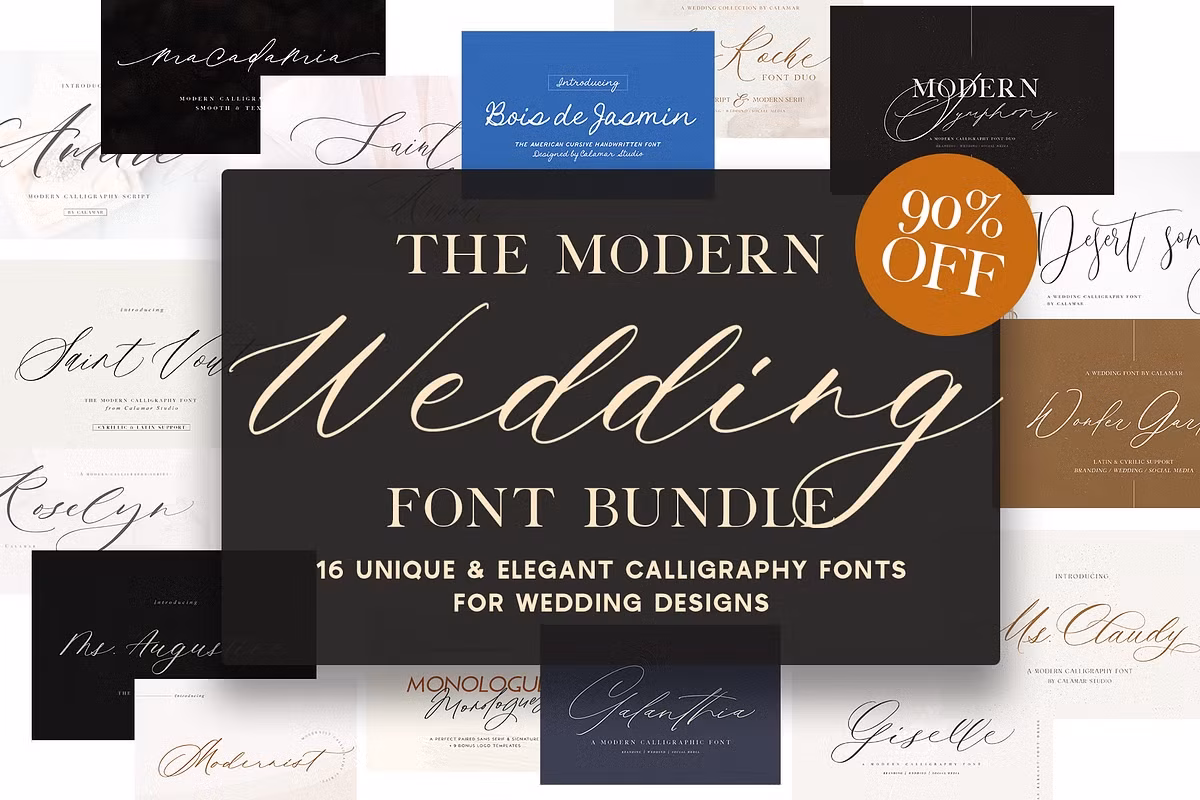
The Wedding Calligraphy Font Bundle Free Download
The Wedding Calligraphy Font Bundle Free Download is an elegant and versatile collection of beautifully crafted calligraphy fonts designed for wedding invitations, romantic branding, and elegant stationery. Featuring a variety of script fonts with stunning flourishes and delicate detailing, this bundle is perfect for creating stylish and sophisticated designs that convey a sense of luxury and love.
The Wedding Calligraphy Font Bundle Free Download provides a range of options for adding a personal, hand-lettered touch to your projects. Whether you're working on wedding invites, save-the-date cards, or custom logos, this bundle offers everything you need to create elegant, memorable designs. Download it today and add a timeless calligraphy style to your next creative venture!